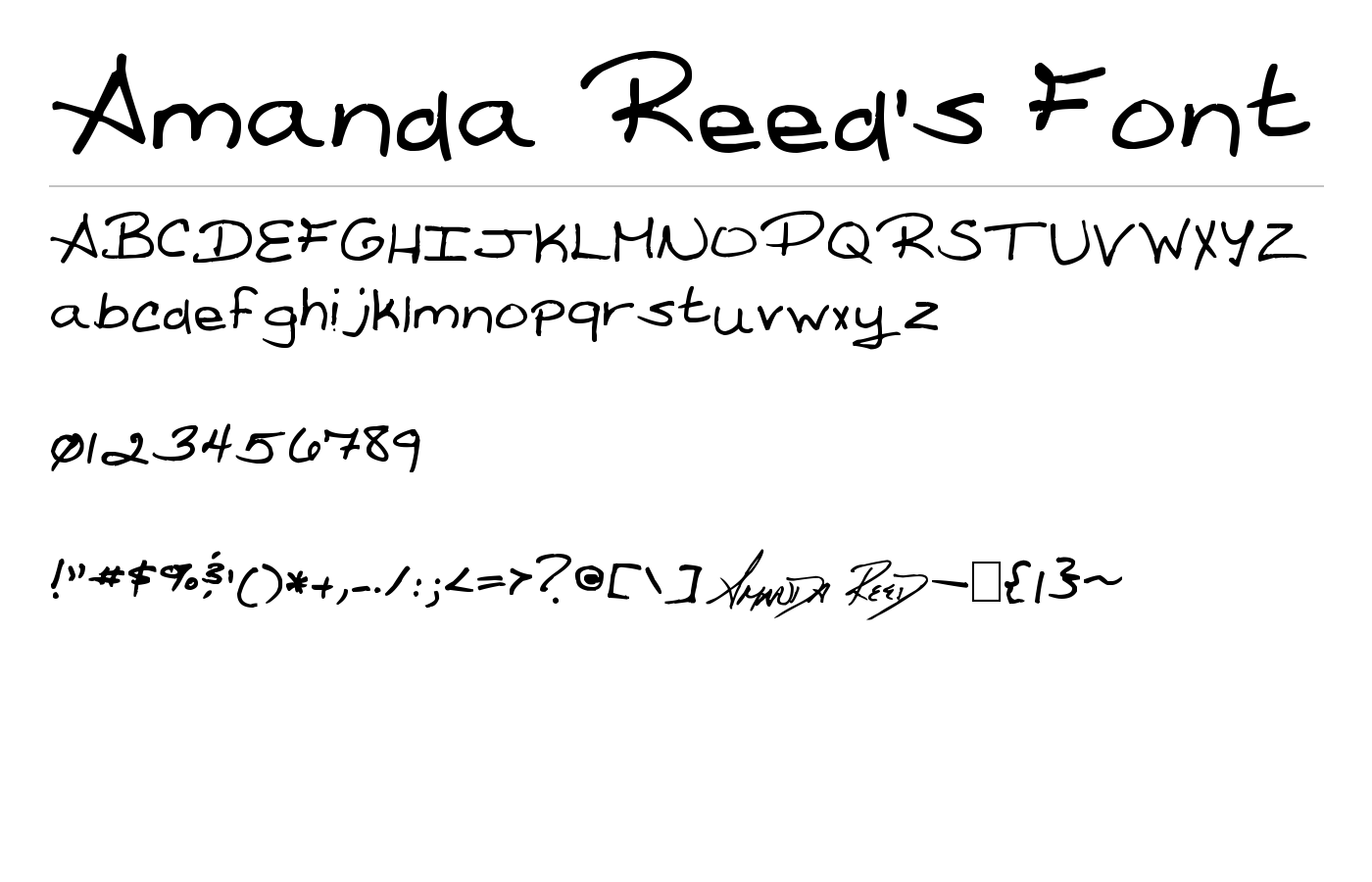
Amanda Reed's Font is a casual and lively handwritten script with a light weight and natural, uneven strokes that give it a friendly, personal touch. Its playful letterforms and varied character shapes make it ideal for creative projects, informal branding, and artistic designs where a warm, approachable feel is desired. This font works well for invitations, social media graphics, and any context needing an authentic, hand-drawn aesthetic.
Amanda Reed's Font